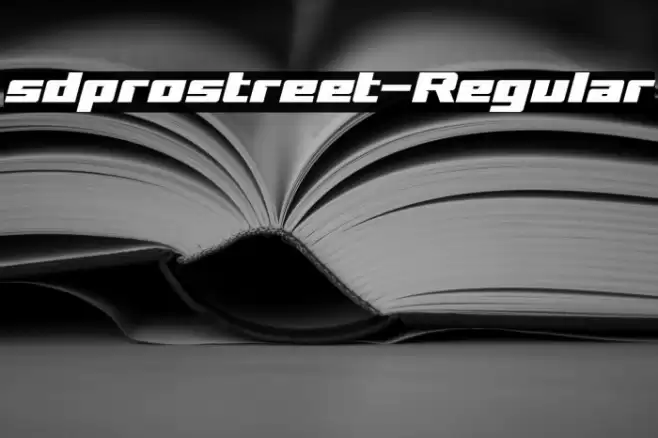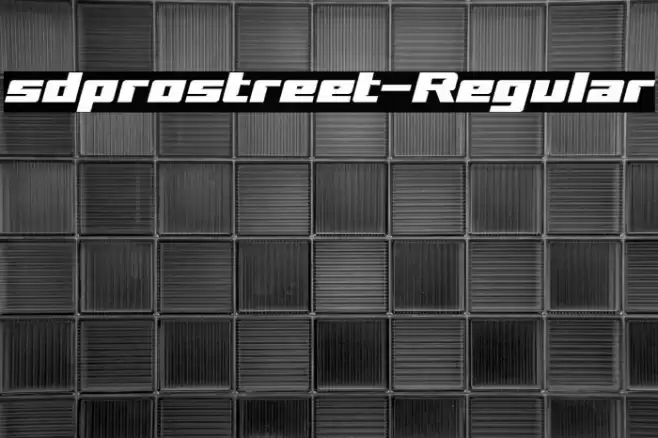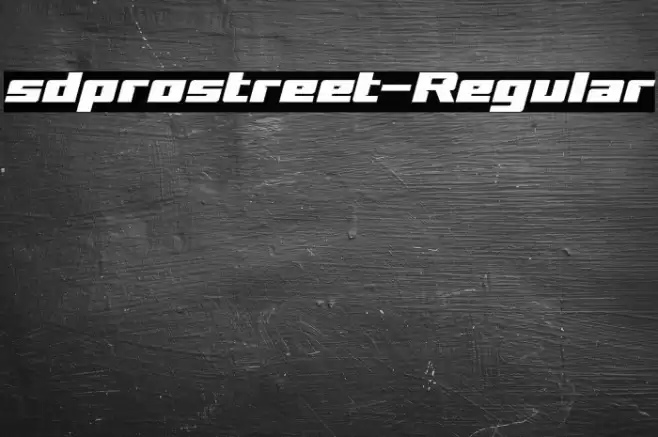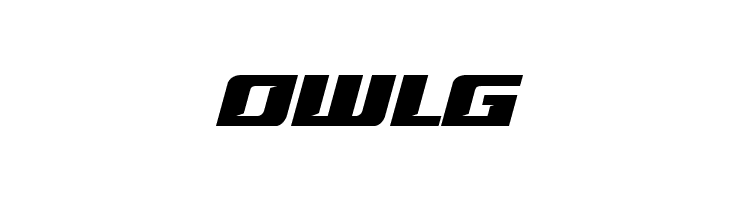
sdprostreet-Regular Font
sdprostreet-Regular Description
This font features a bold and dynamic style with a strong presence, characterized by its angular and geometric letterforms. The uppercase and lowercase letters maintain a consistent slant, giving a sense of motion and speed. The numbers and special characters follow the same design principles, ensuring uniformity across all glyphs. The thick strokes and sharp edges contribute to its modern and aggressive appearance, making it suitable for projects that require a bold statement.
A bold, angular font with a dynamic and modern style from Uncategorized fonts.
- Proposed Projects: Ideal for automotive branding, sports team logos, video game titles, and dynamic posters.